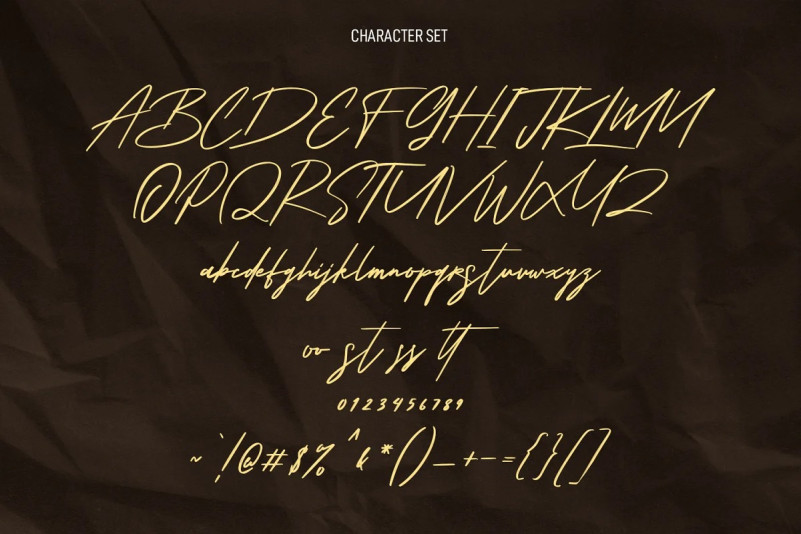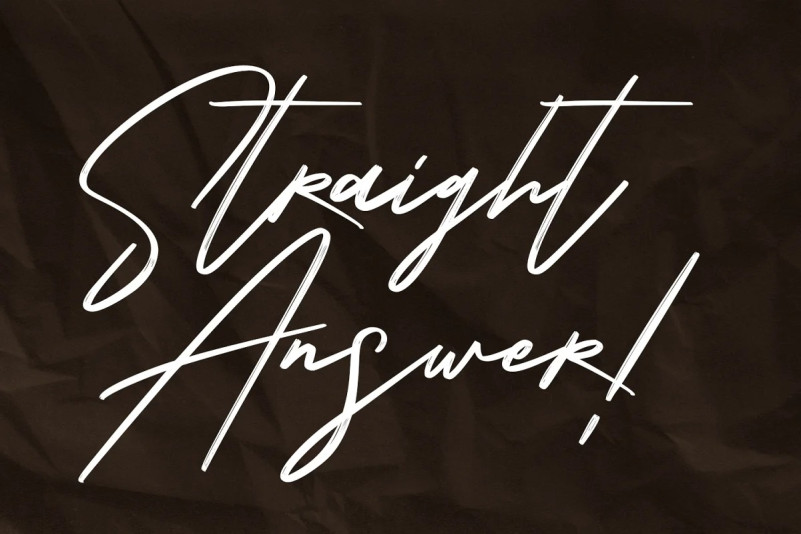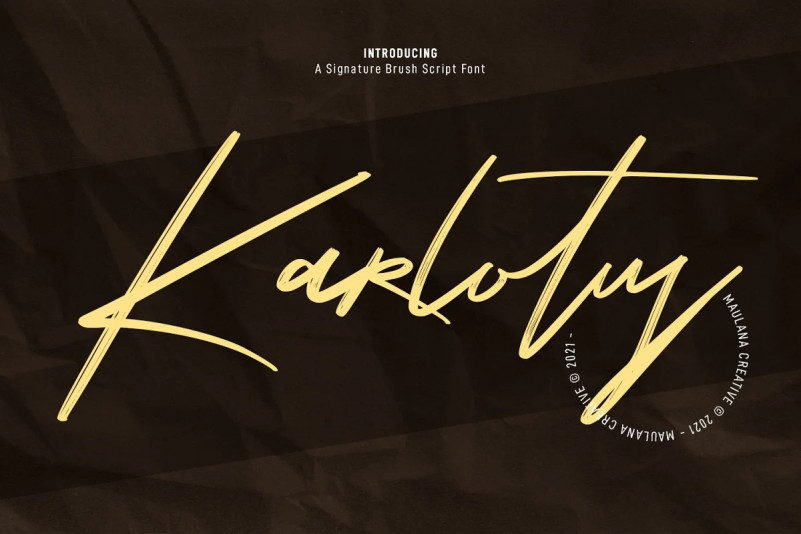
Karlotus Font
Karlotus Brush Font is a modern signature brush script font. With regular brush stroke, fun character with some of ligatures. To give you an extra creative work. Karlotus font support multilingual more than 100+ language. This font is good for logo design, Social media, Movie Titles, Books Titles, a short text even a long text letter and good for your secondary text font with sans or serif. Make a stunning work with Karlotus font.